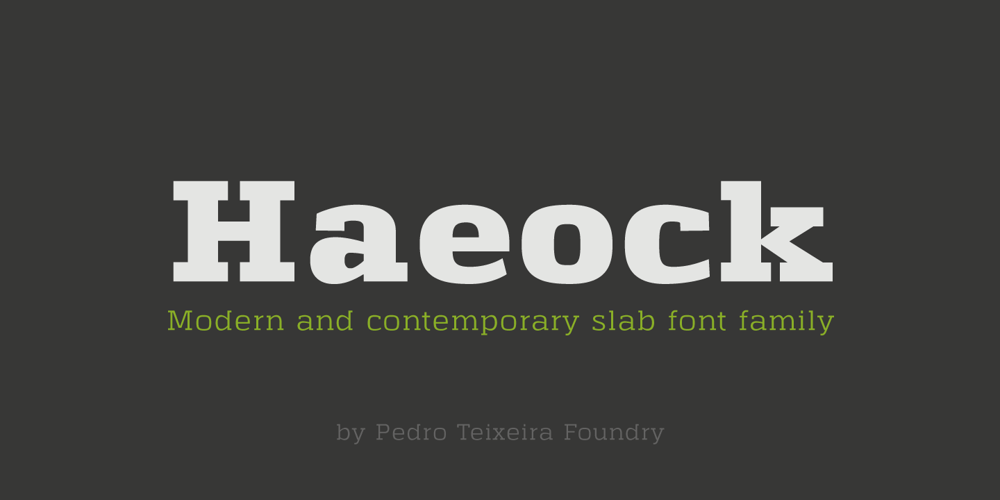
Haeock Font Family was designed by Pedro Teixeira and published by Pedro Teixeira. Haeock contains 8 styles and family package options. Haeock is very readable, an beautiful slab serif designed by Pedro Alexandre Teixeira.This font family works very well on packagings, branding and editorial design, tiles, books, magazines, corporate design.